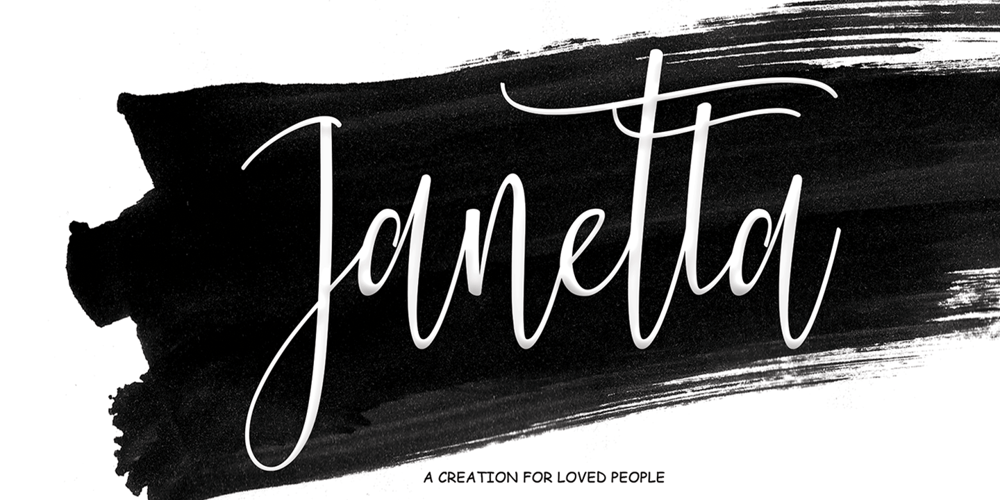
Janetta Font Family was designed by Muhammad Akbar and published by Sinfa. Janetta contains 1 styles and family package options. Janetta is a script that includes very carefully designed beginning and end letters. It is perfect for your needs in making logos, invitations, cards, product packaging, headers, and more. Janetta also includes several sets of lowercase letters including swashes.